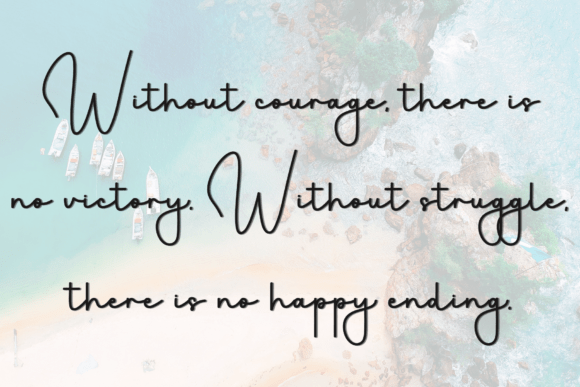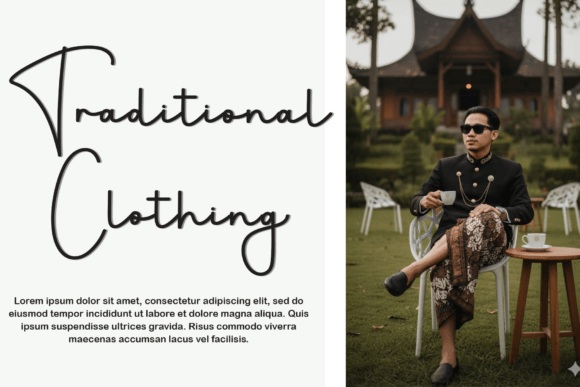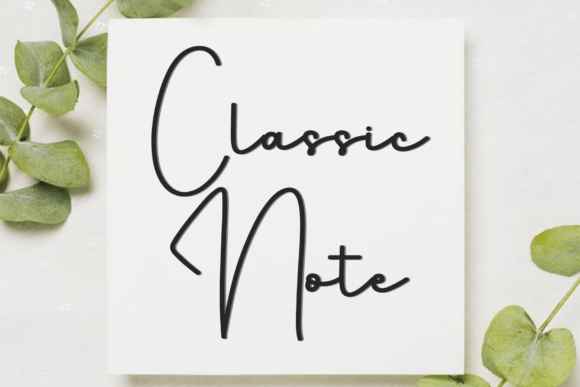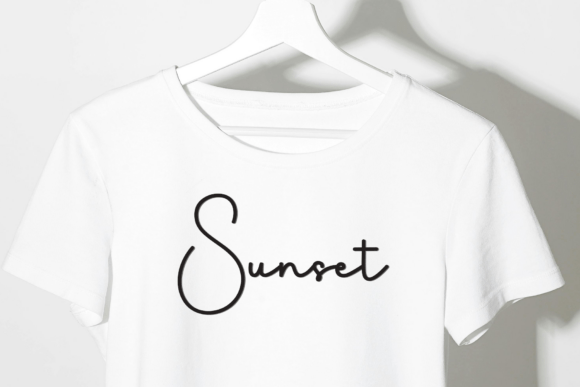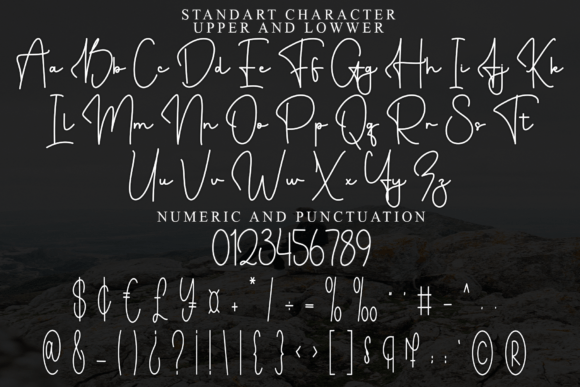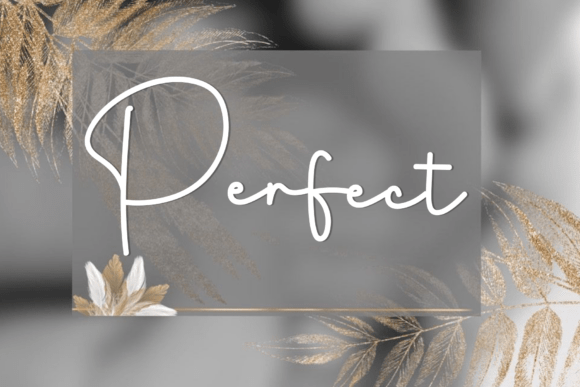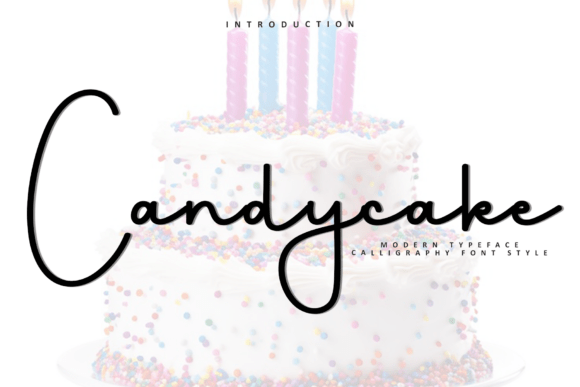
Discover the Sweet Delight of Typography: Introducing the Candycake Font
Have you ever stumbled upon a font that makes your creative heart skip a beat? For designers and crafty enthusiasts, finding the perfect font can be a game-changer. It’s like stumbling upon a hidden treasure trove of inspiration, and that’s exactly what we’ve discovered with the Candycake Font.
This beautiful and eye-catching font is designed to add a touch of sweetness to your designs. With its soft, unique strokes, the Candycake Font is perfect for a wide range of creative projects, from crafting to graphic design. Its versatility and compatibility with various applications make it a valuable addition to any designer’s toolkit.
Whether you’re a seasoned pro or just starting out, the Candycake Font is sure to bring a touch of magic to your work. Its natural style and distinctive character make it an ideal choice for designers looking to add a personal touch to their projects.
Candycake Font Key Features
- Size: The font family consists of 6 different font weights, ranging from Thin to Black, providing a wide range of design possibilities.
- Unique Characteristics: Candycake Font features a unique, hand-drawn design with bold, playful lines and a touch of whimsy, making it perfect for adding a touch of personality to your designs.
- Kerning and Ligatures: Candycake Font includes advanced kerning and ligature pairs, ensuring that text looks smooth and even, even in complex layouts.
Candycake Font Review
I recently had the chance to work with the Candycake font, and I must say it’s a unique and playful addition to any design project. ✨ Here are some of its strengths:
- Its whimsical feel makes it perfect for children’s books, magazines, and other youth-oriented content.
- The font’s rounded edges and soft curves create a sense of friendliness and approachability.
- It’s highly customizable, allowing you to adjust its weight, style, and spacing to suit your design needs.
- The font may not be suitable for formal or professional projects, as it can come across as too playful or childish.
- It may not be the best choice for body text, as it can be quite decorative and may be difficult to read at small sizes.
Overall, I think the Candycake font is a fun and creative option for designers who want to add a touch of whimsy to their projects. While it may have some limitations, it’s definitely worth considering for the right projects.
Tips for Getting the Most Out of the Candycake Font
For best results, use the Candycake Font in bold or italic styles to add emphasis to your text.
Combine the Candycake Font with bright and pastel colors to create a visually appealing design.
The Candycake Font is ideal for:
- Candy-themed designs
- Children’s party invitations
- Bakery and dessert branding